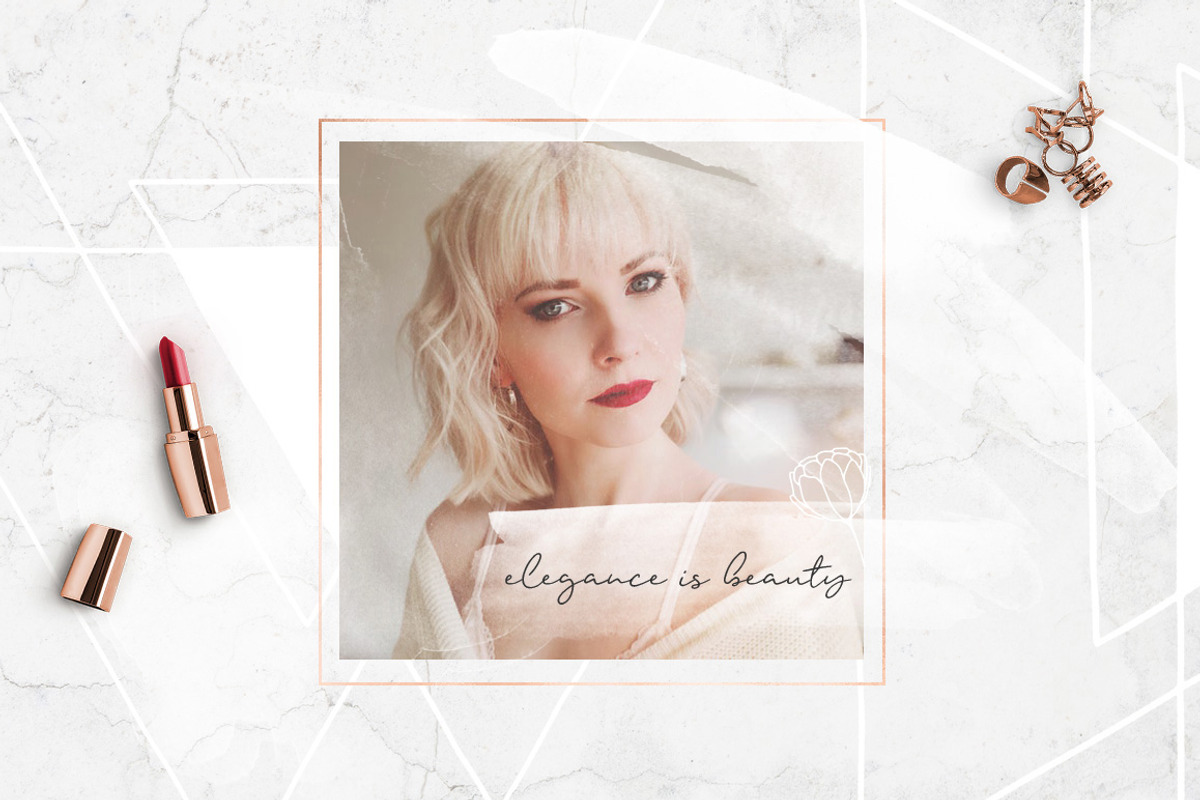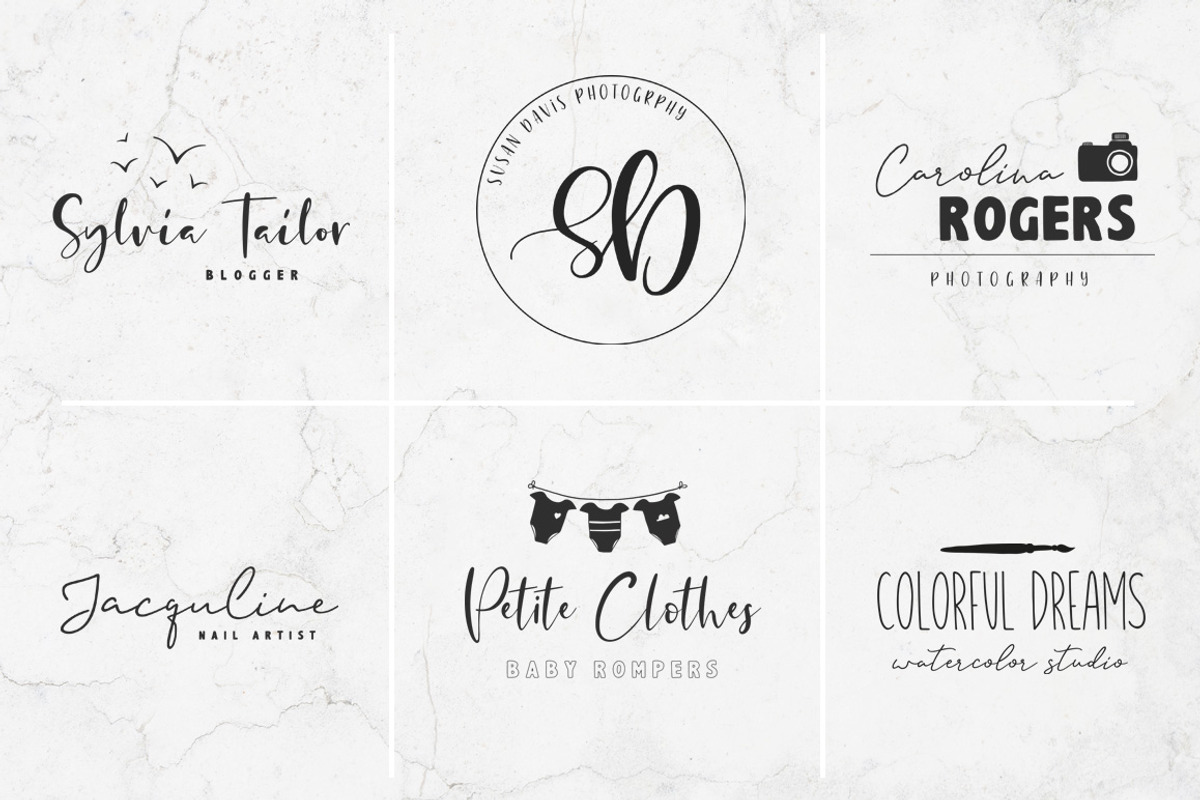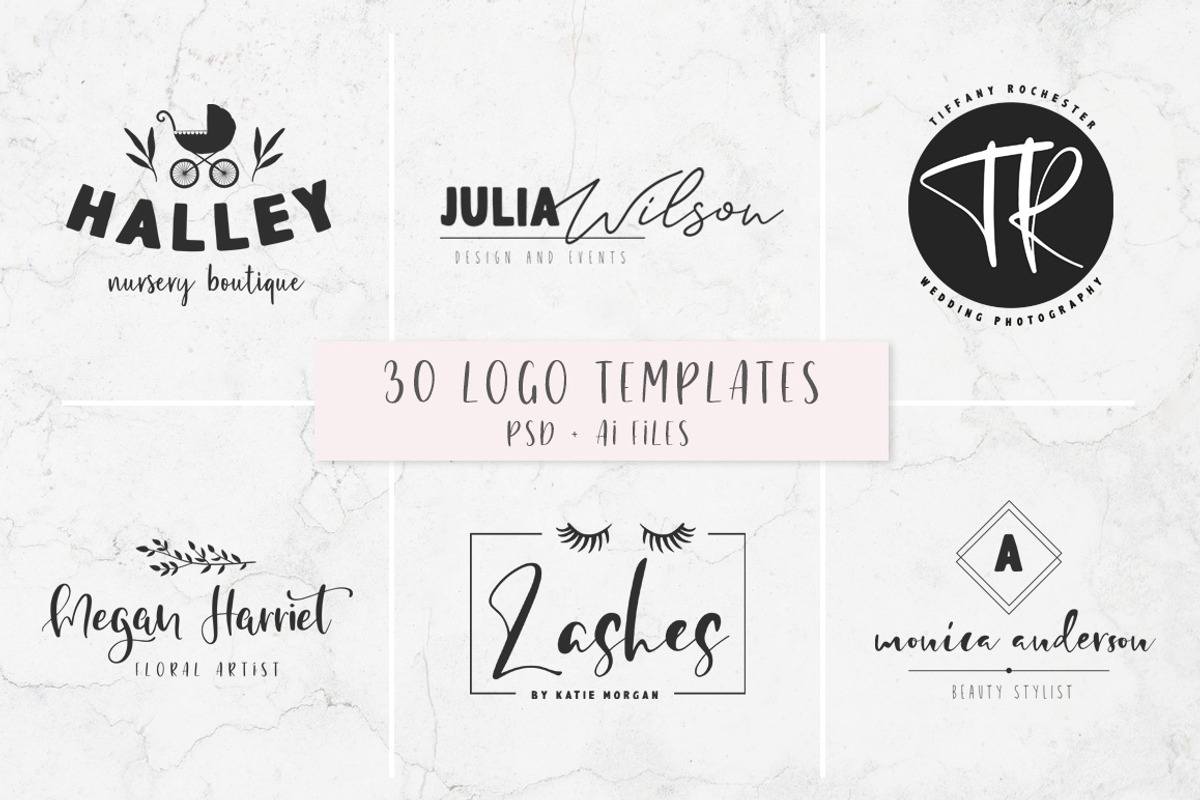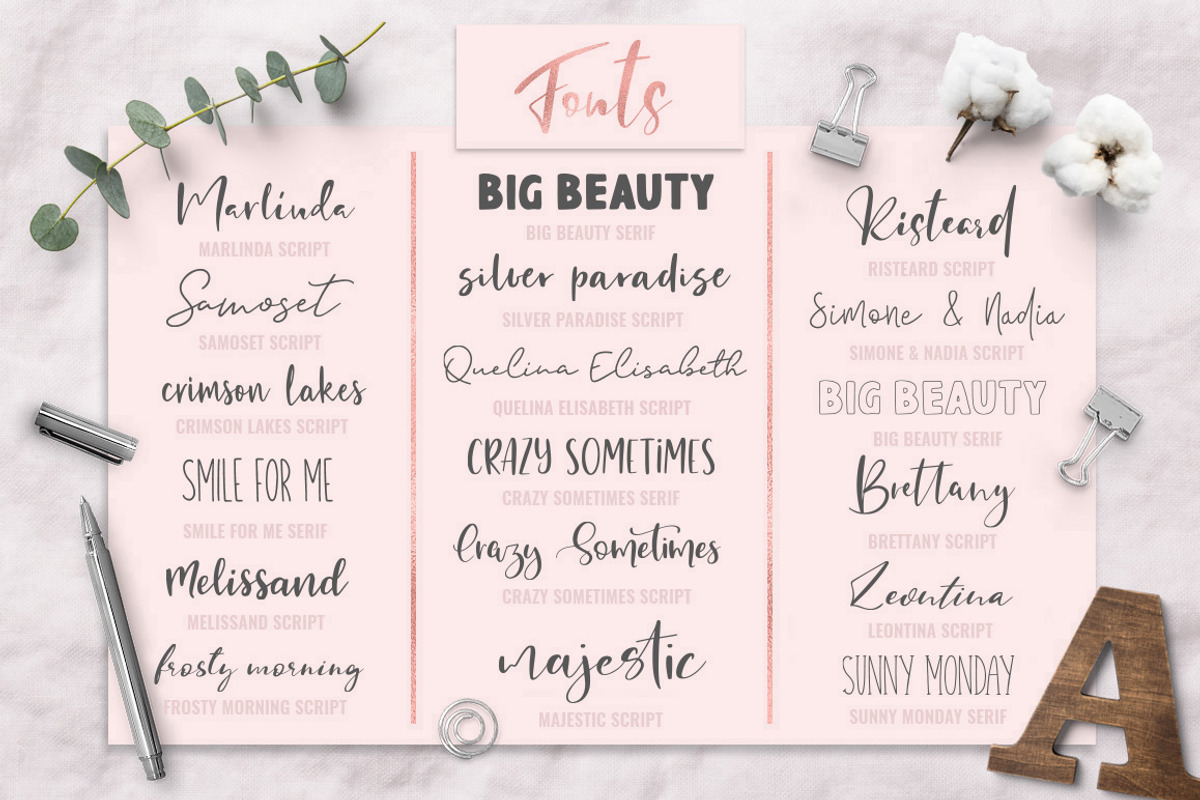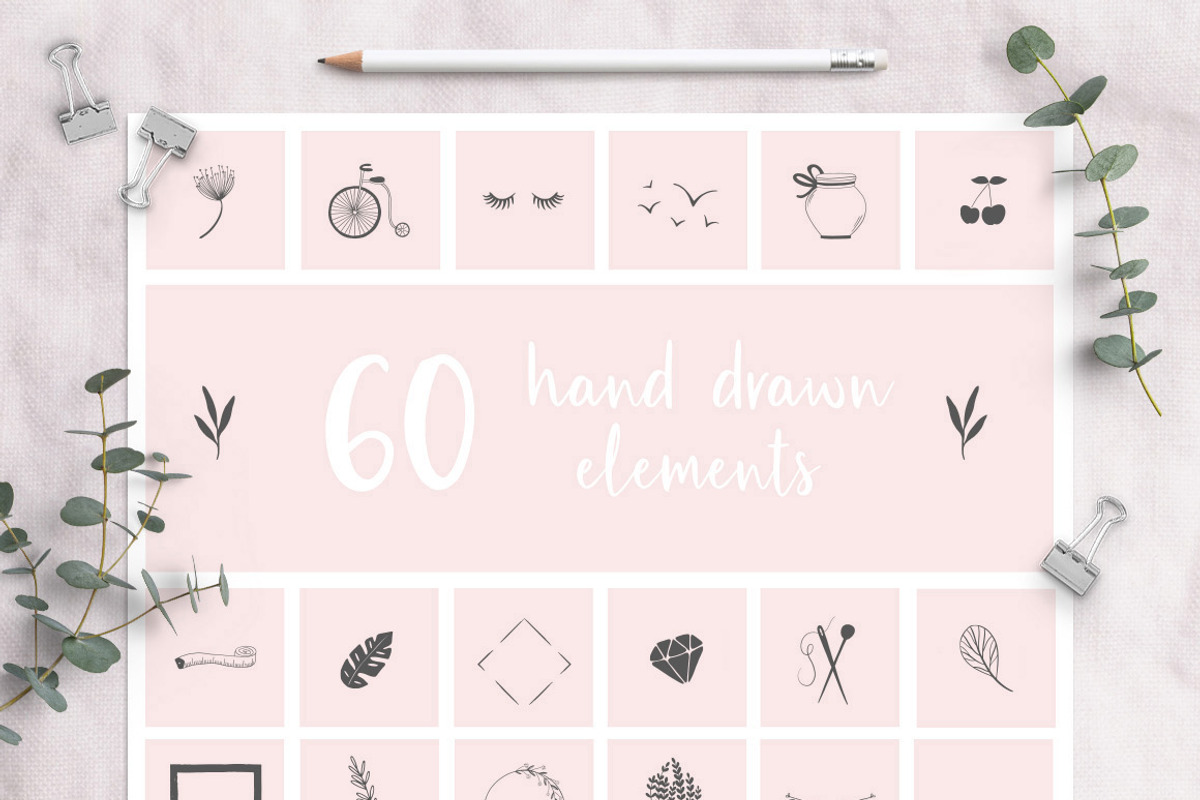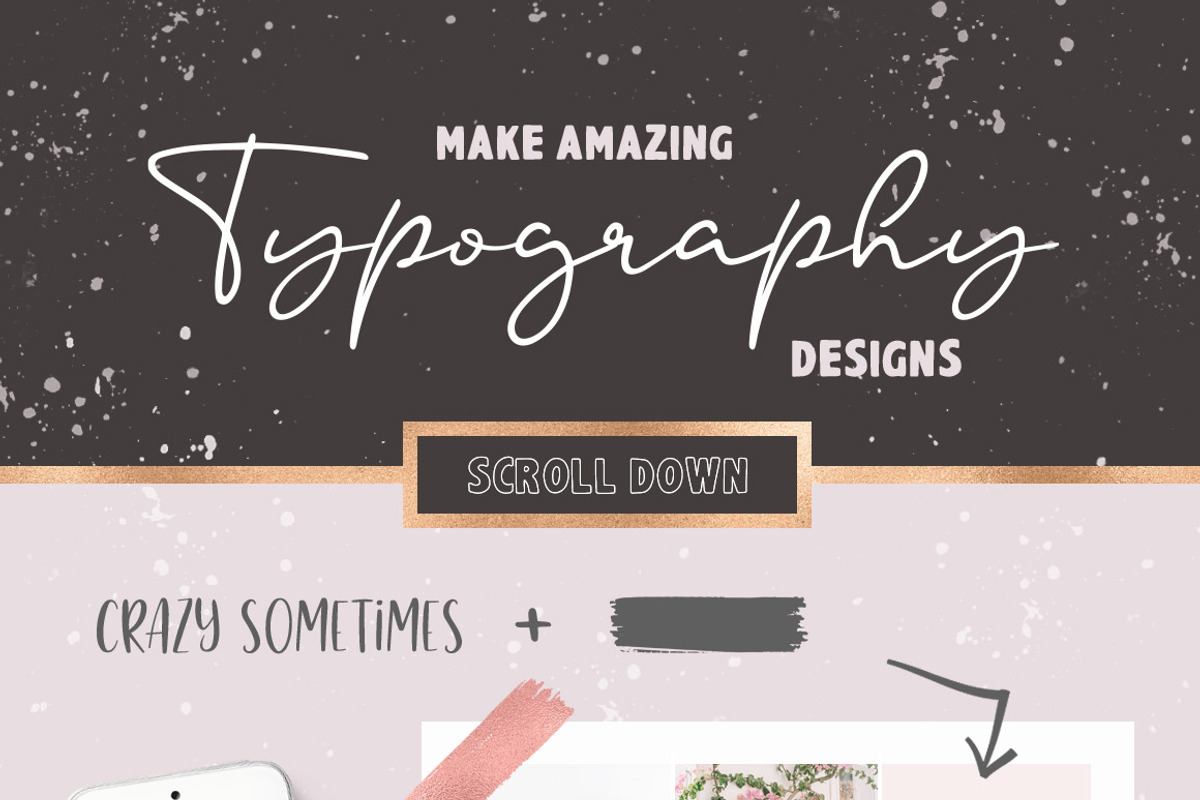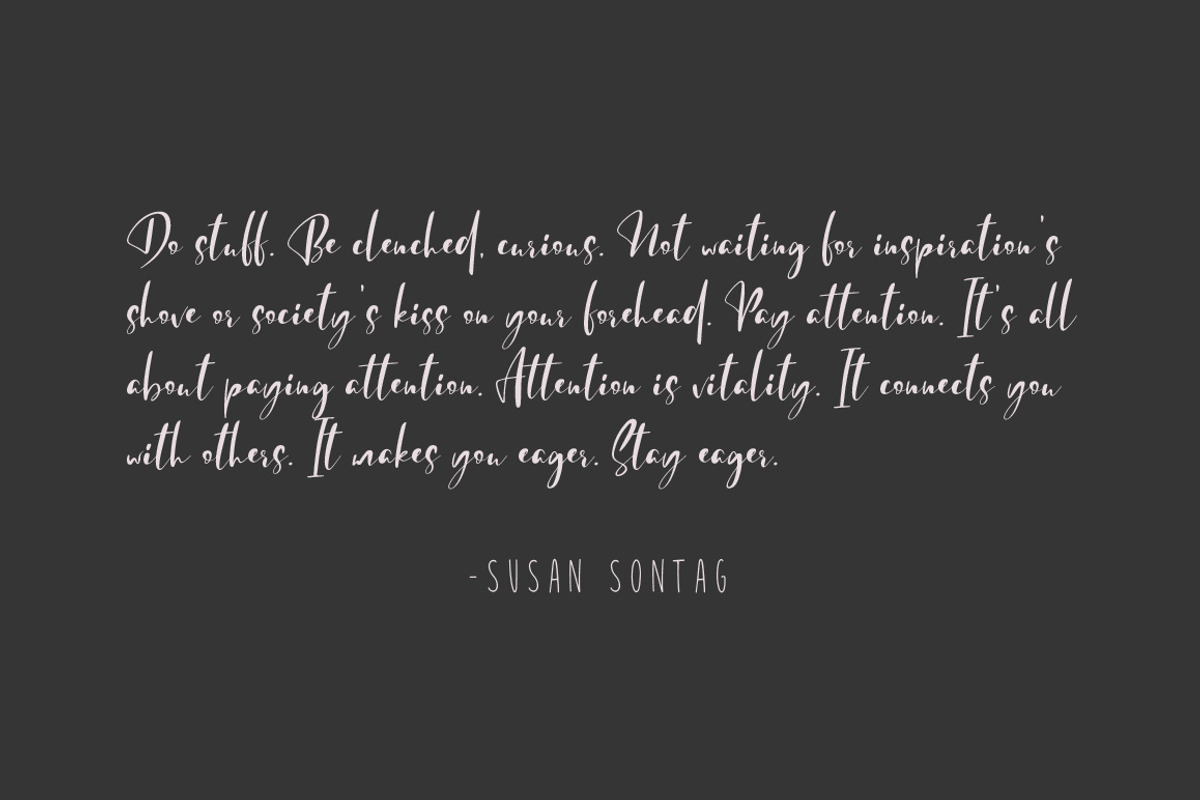
Font Pack & Mini Logo Creator
Introducing The Font Pack with Mini Logo Creator - a gorgeus font bundle packed with hand-lettered script and serif fonts. Collection is also a big variety of individual elements: hand drawing elements, watercolor strokes and metallic textures.
This fontastic pack give you a opportunity to make projects on every occasion with many different styles. You can use many combinations of fonts and make unique design every time. Use them for e-newsletters, quotes, invitations, web banners, greeting cards, t-shirts, packaging, branding, mugs and anything else you can think of! So much possibilities! :)
Want more? You can add watercolor strokes, hand drawing elements or even glamour, metallic effect with foiled textures, to your typography designs. Everything you can find in this pack :)